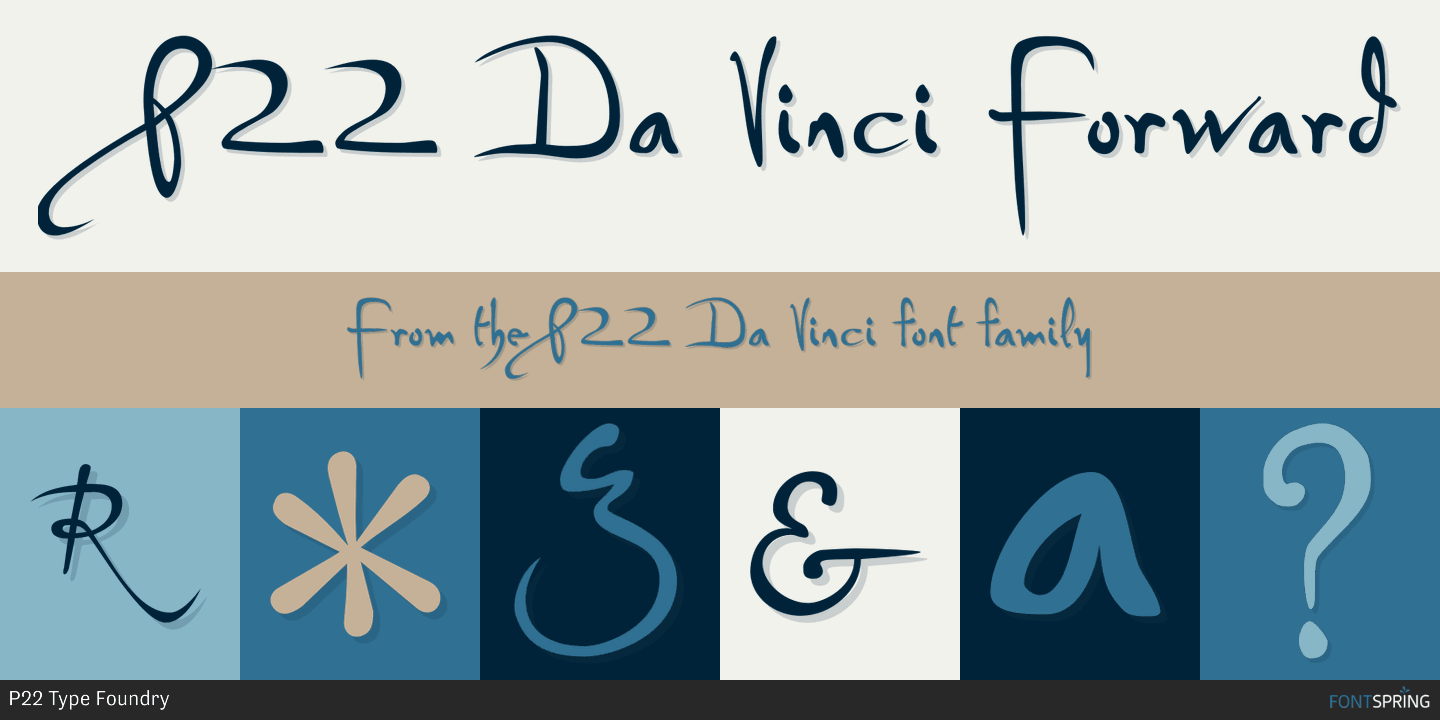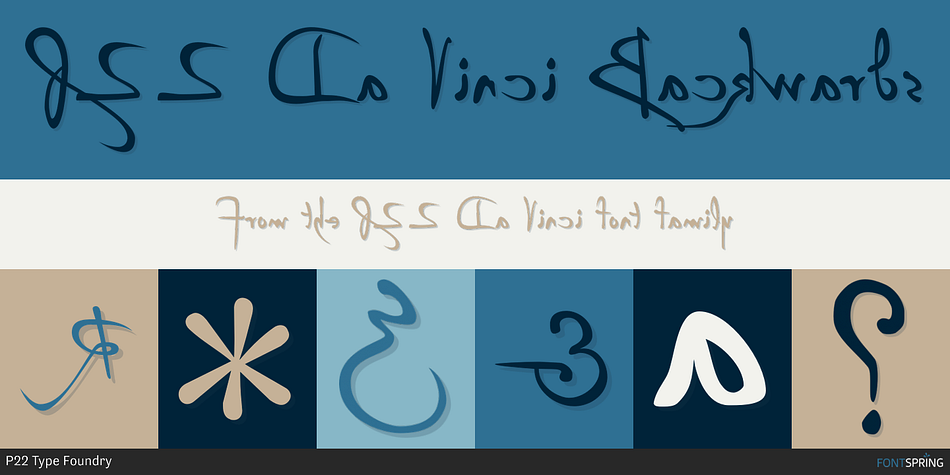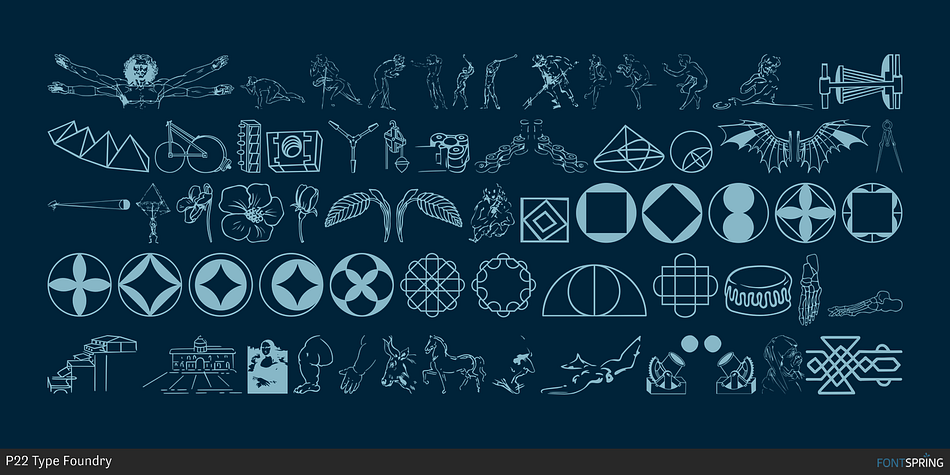
P22 Da Vinci is a multiple classification font family. This typeface has three styles and was published by P22 Type Foundry.
Fonts based on the handwriting of great Italian artist, inventor, and visionary Leonard da Vinci. Includes Leonardo’s remarkable backwards writing style.